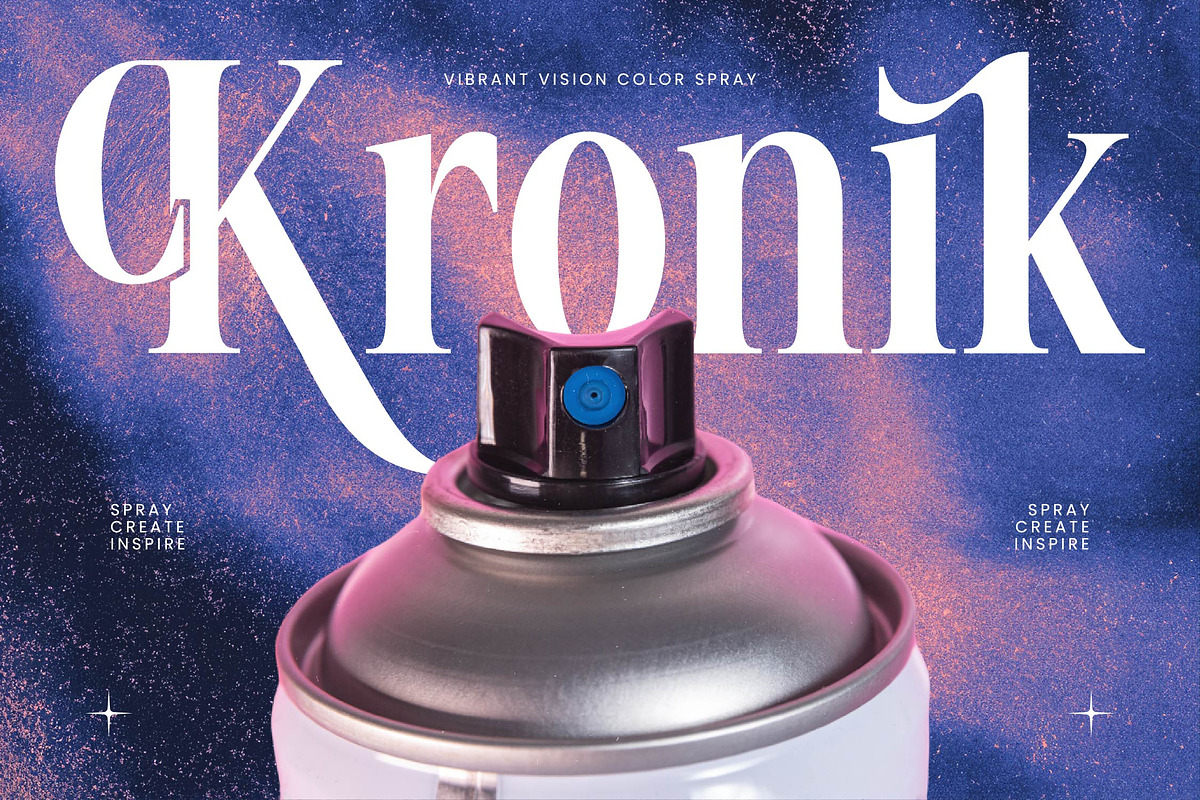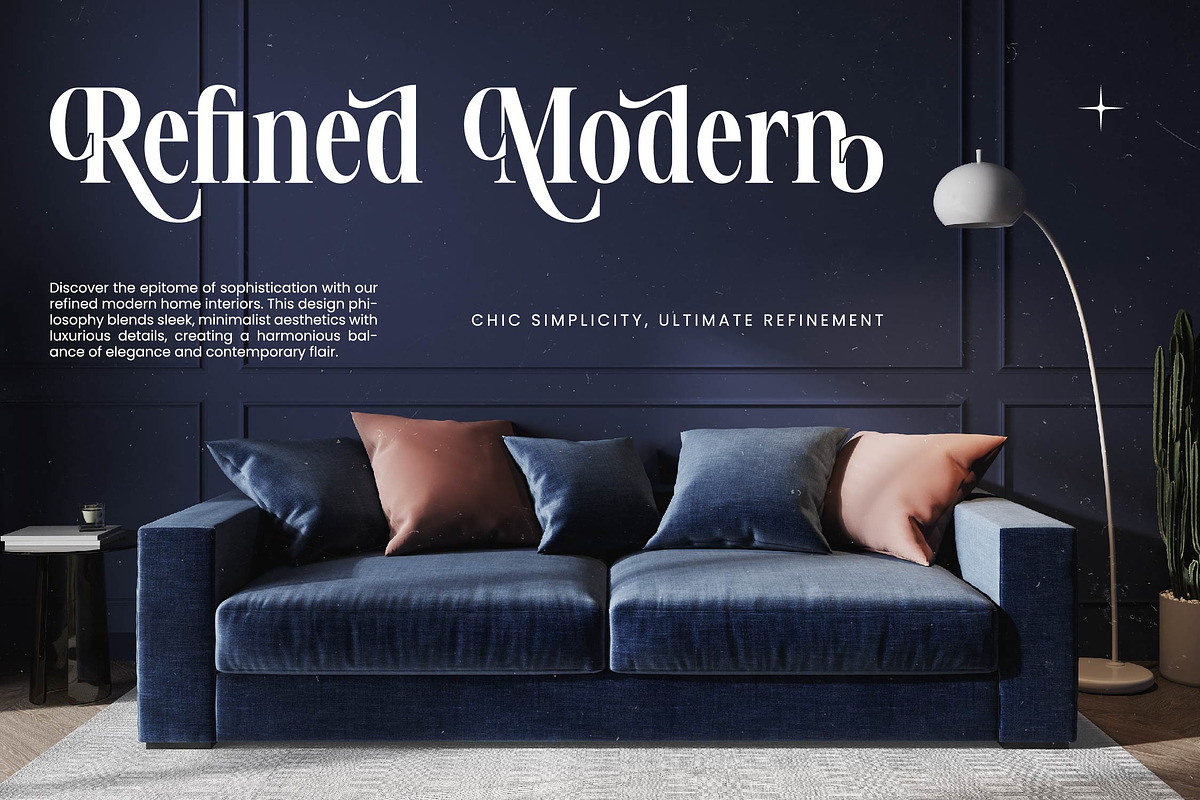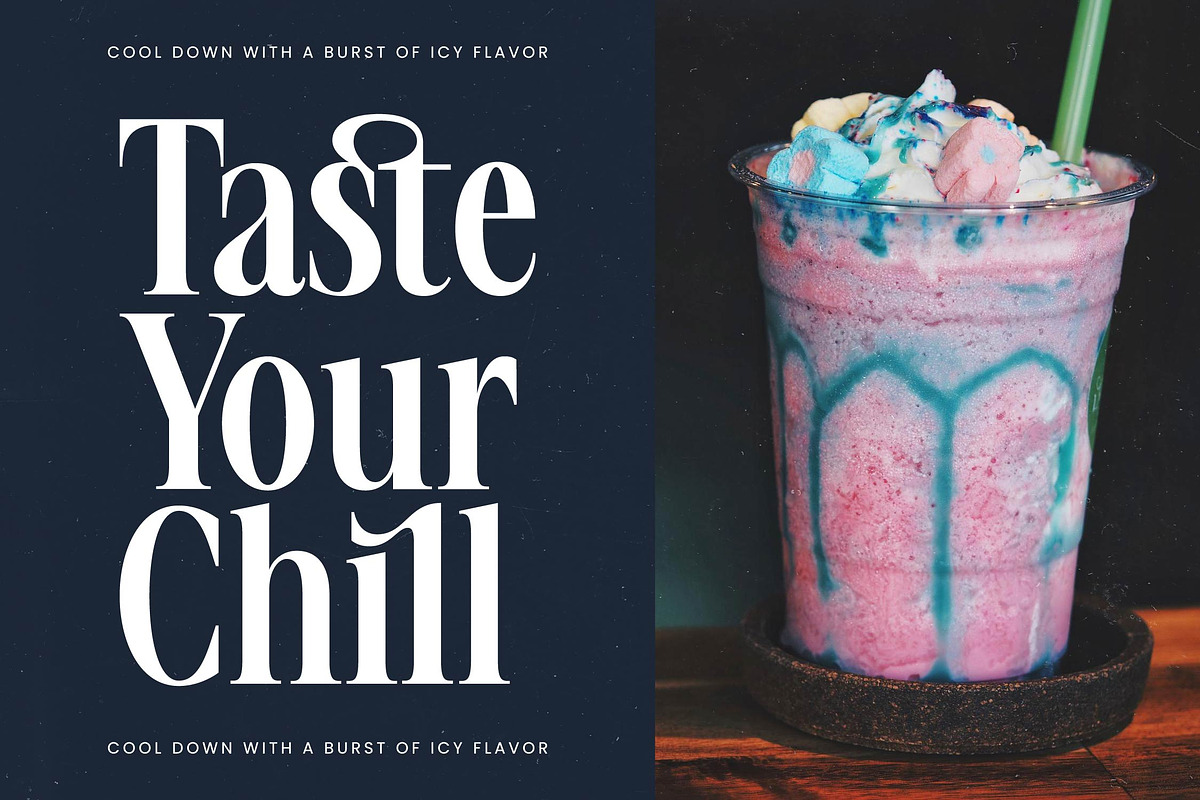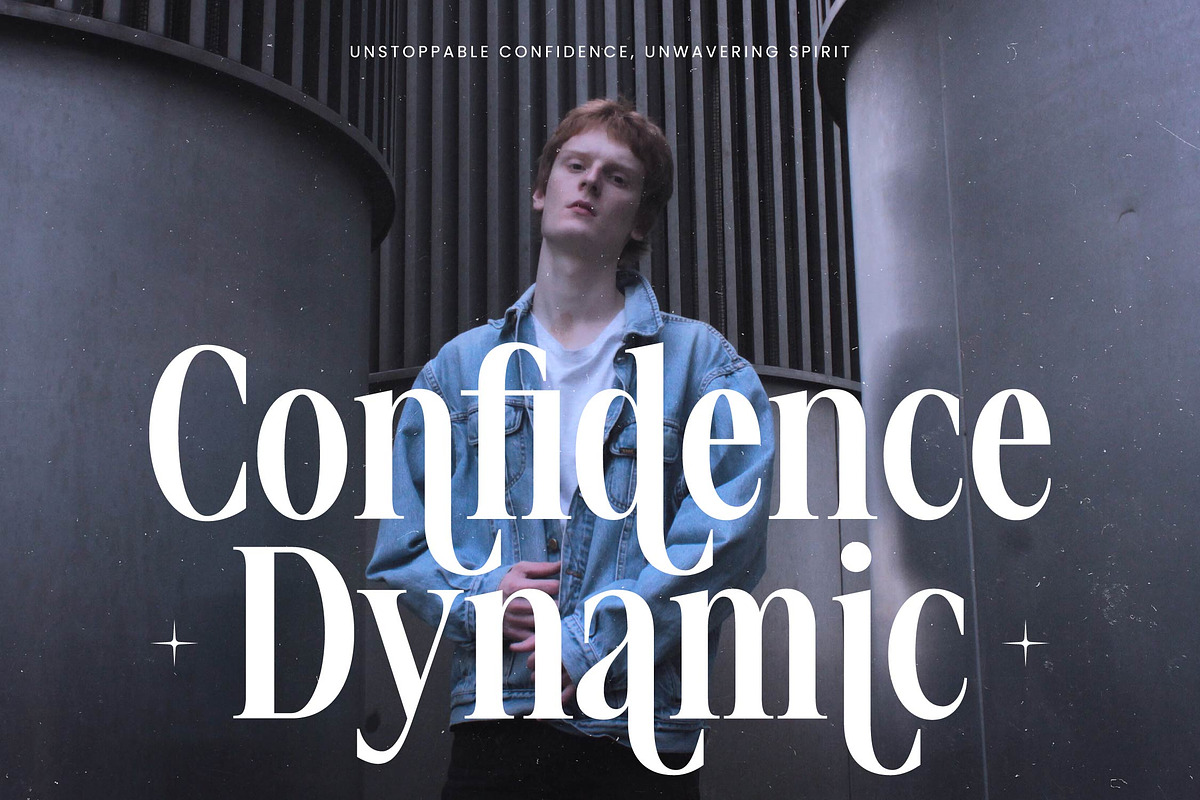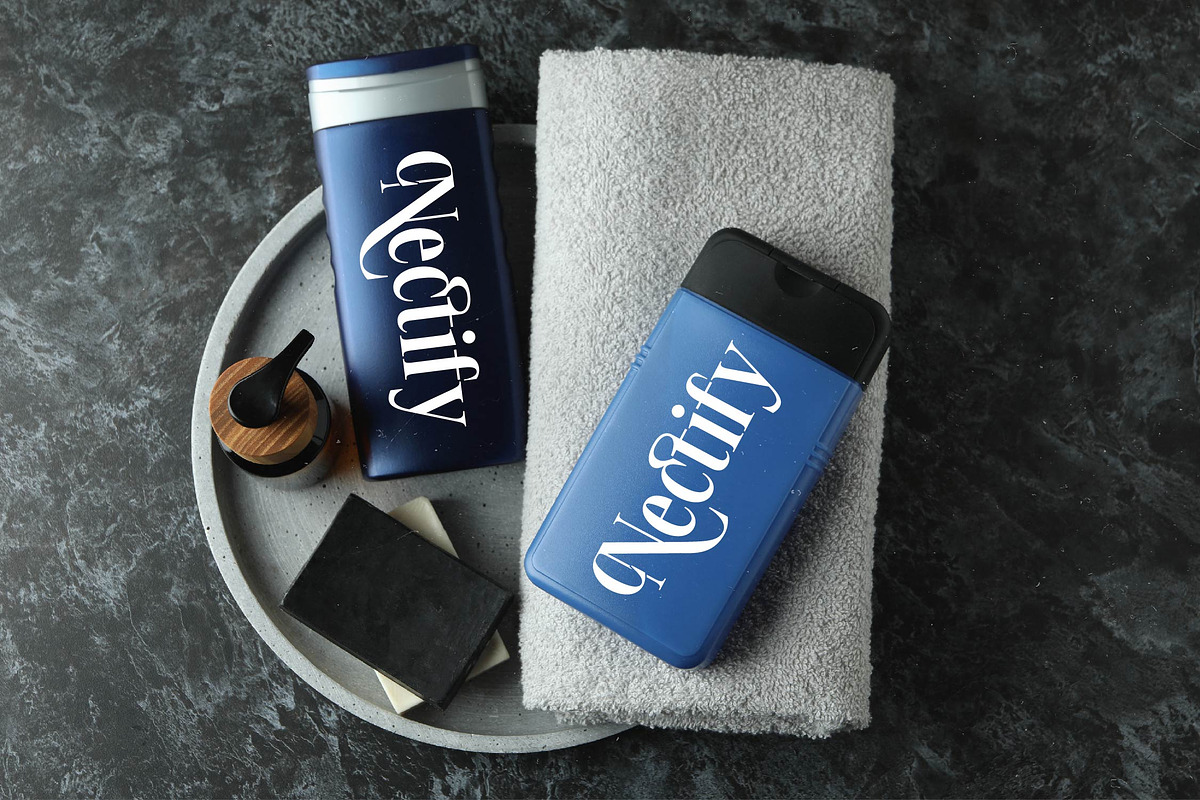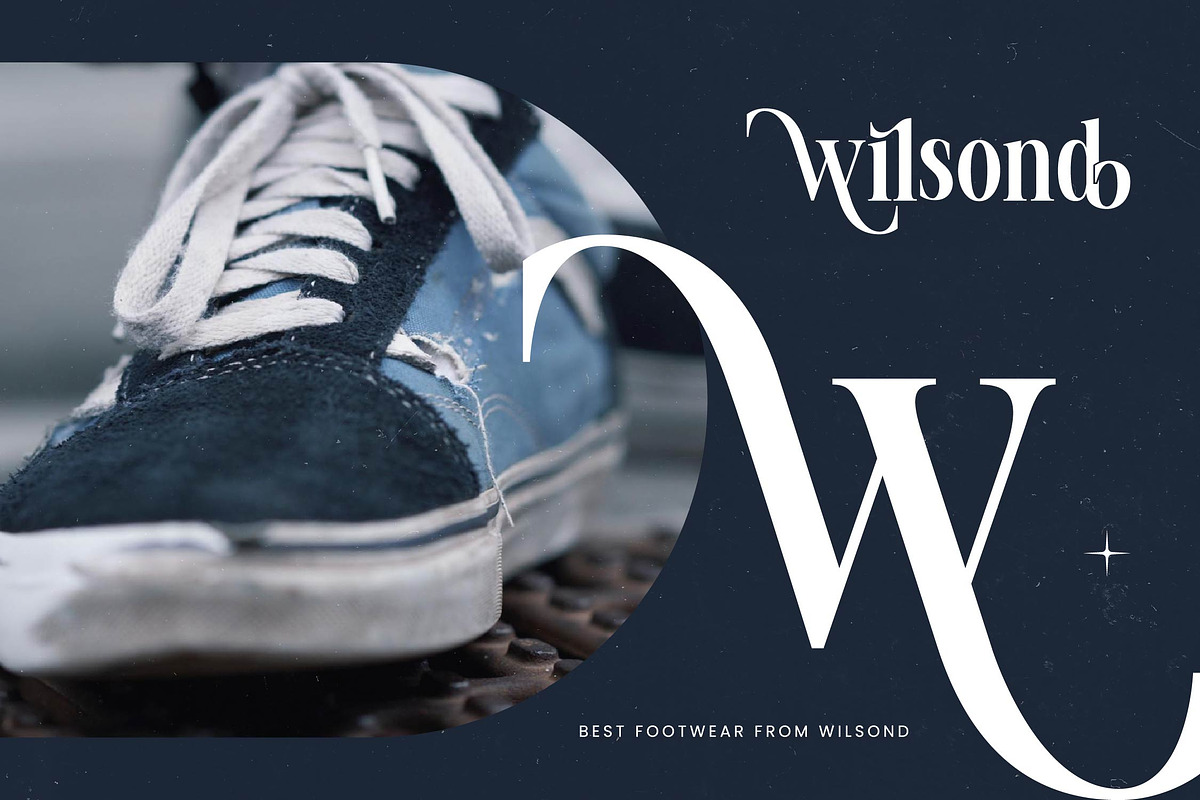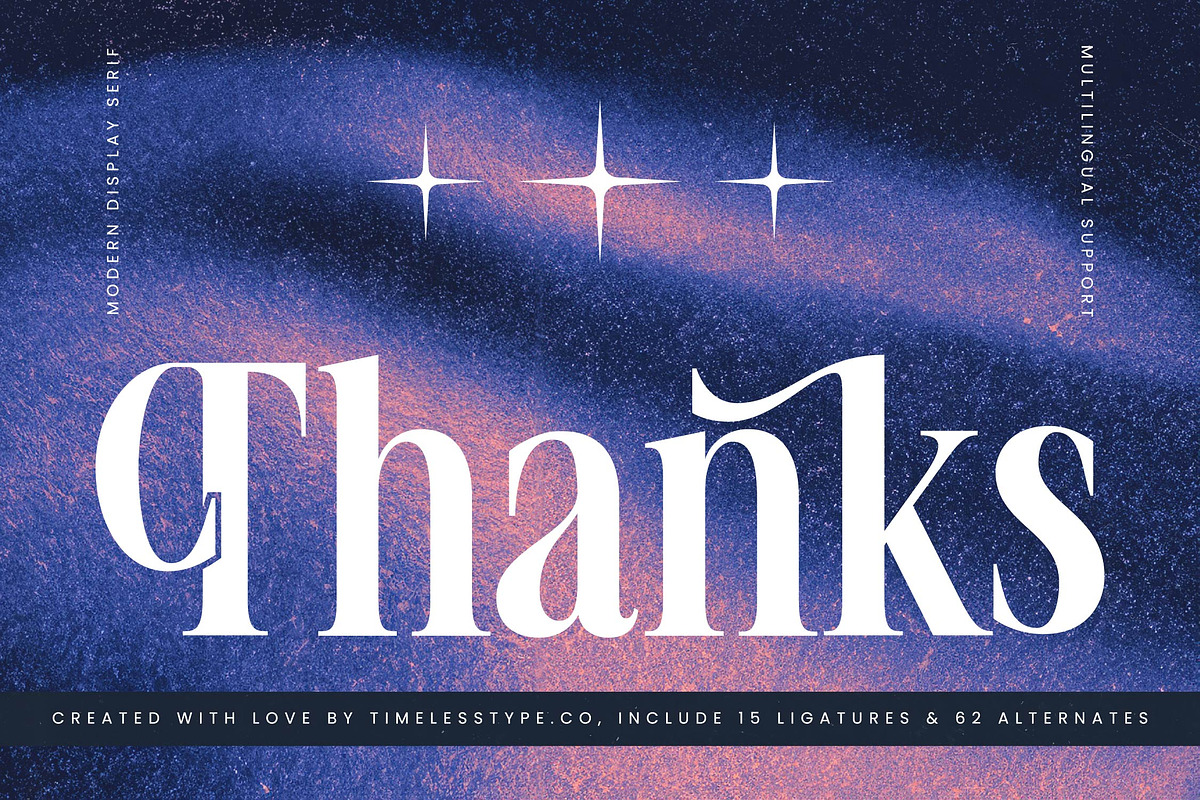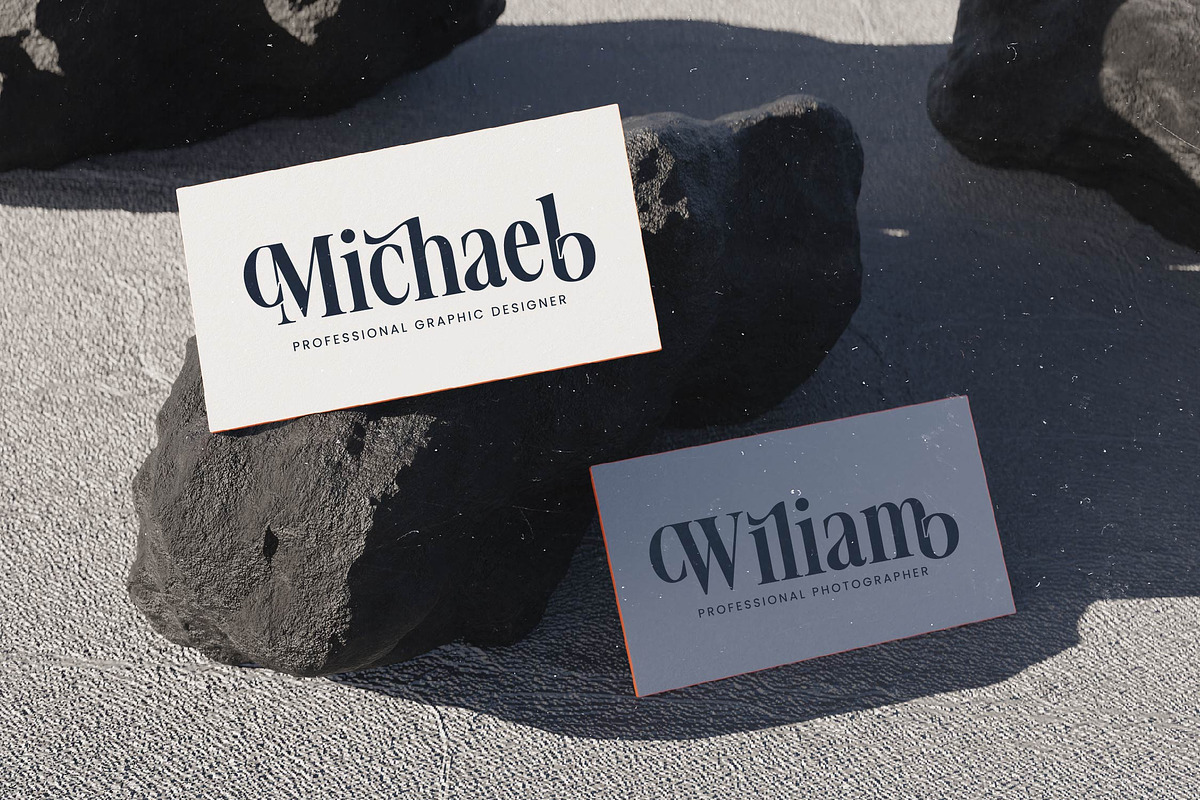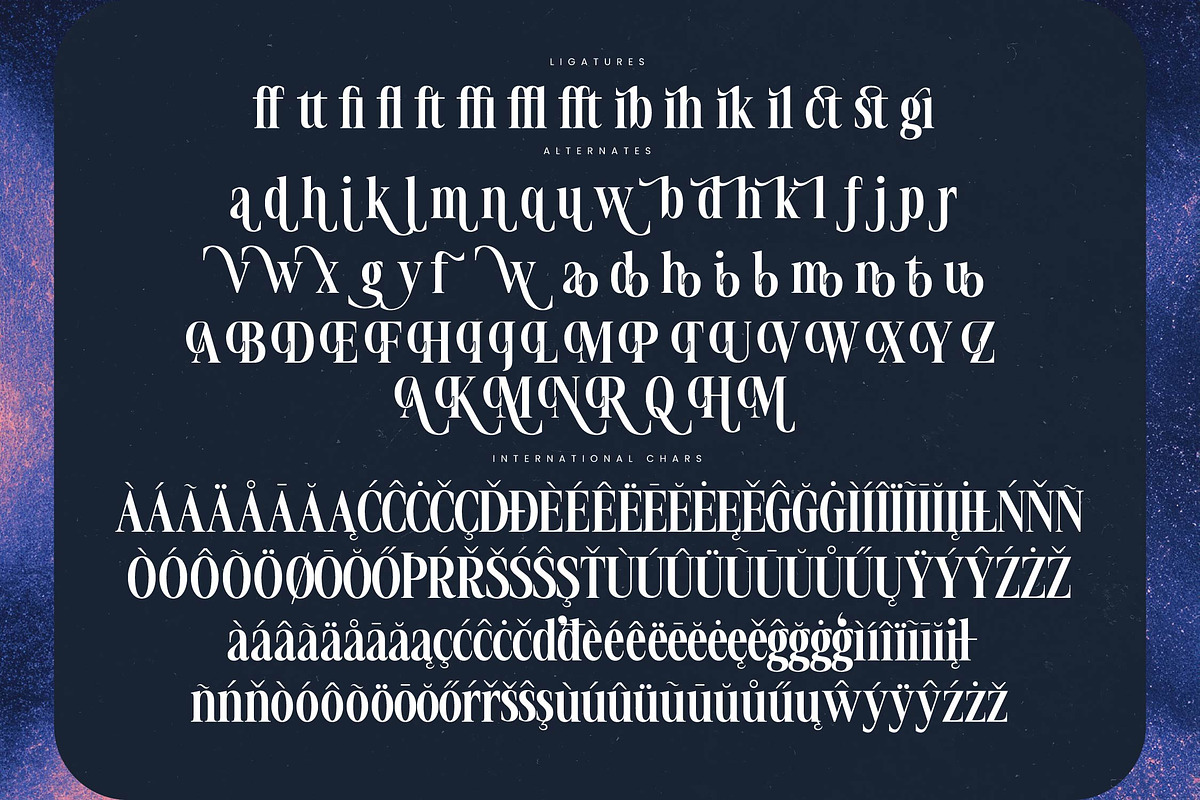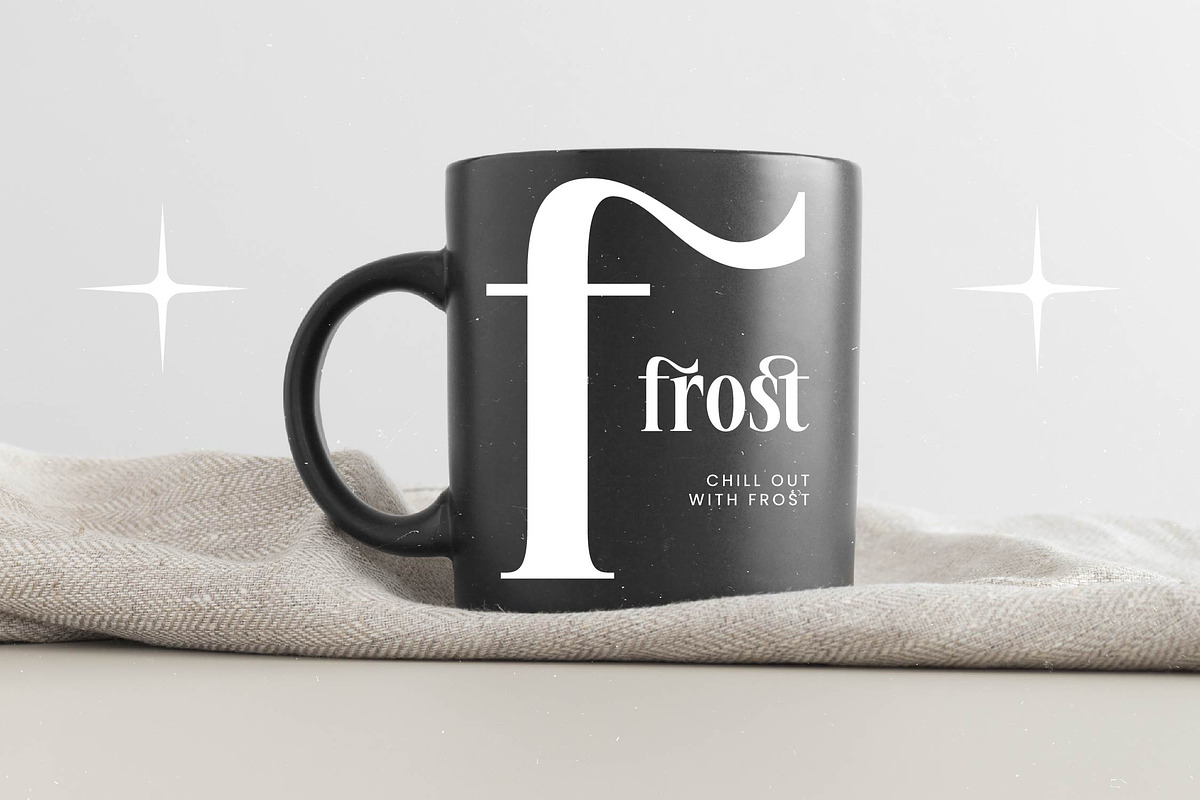
Voilstar Modern Display Serif
Step into a world where elegance meets the stars with Voilstar, a typeface designed to elevate every word into a piece of art. Its graceful curves and sharp lines create a visual symphony that resonates with effortless sophistication and timeless charm.
Inspired by the celestial dance of night skies and the allure of high-fashion boutiques, this font captures a dreamlike quality. It evokes a sense of wonder and refined heritage, bridging the gap between cosmic mystery and terrestrial luxury.
This modern serif display choice commands attention through its high-contrast serif design and luxury typography feel. It serves as an editorial font that balances bold presence with delicate details, ensuring your branding impact remains unforgettable.
Staying ahead of the modern serif trend, this typeface is perfect for designers seeking character-driven typography that breaks away from the mundane. It sits at the forefront of editorial display fonts, offering a fresh perspective on classic beauty.
From high-end logo design and comprehensive branding systems to the fine details of wedding invitations and fashion magazine layouts, it thrives in any creative environment. Its versatility makes it the go-to choice for premium packaging and sophisticated editorial projects.
Unlock a world of creative possibilities with a rich collection of ligatures, alternates, and decorative swashes that add a bespoke touch to your work. Featuring full multilingual support and a wide array of international characters, it provides a premium toolkit for global design excellence.
- Ligature 15 Alternate 62